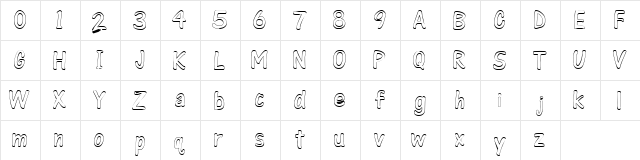
ColorFont Regular
Design Context for ColorFont Typeface
ColorFont is a composed and adaptable typeface that performs quietly and consistently across a wide range of design contexts.